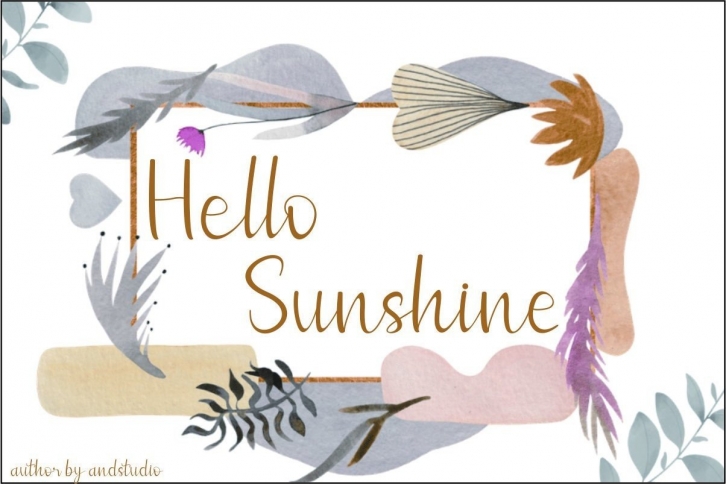
“Hello Sunshine” is a sweet and beautiful modern script font. Featuring characters dancing along a baseline, this font will add a splash of luxury to any design project you want to create!